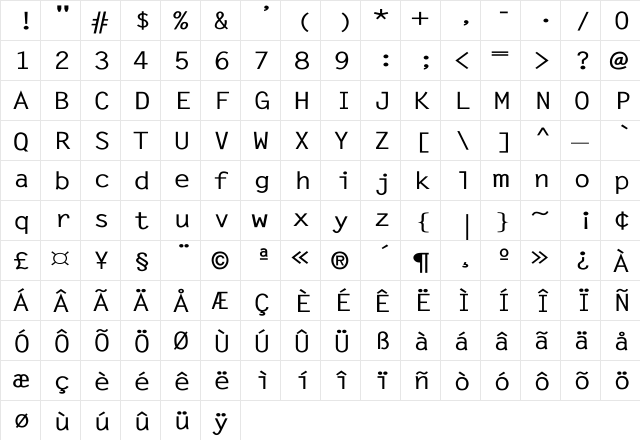
LetterGothic-Bold Wd Regular
Design Context for LetterGothic-Bold Wd Typeface
LetterGothic-Bold Wd has the quiet confidence of well-executed sans-serif typography: versatile, unobtrusive, and dependable at any size. Its bold stroke weight gives it real presence on the page.
Well-suited to navigation labels, product packaging, and anywhere legibility at scale is essential.
Font Pairing: Use LetterGothic-Bold Wd for headlines alongside a lighter-weight sans or serif for body copy to establish clear visual hierarchy.
Pro Tip: Use LetterGothic-Bold Wd for UI labels, navigation, and short-form body copy where clean legibility is the priority.